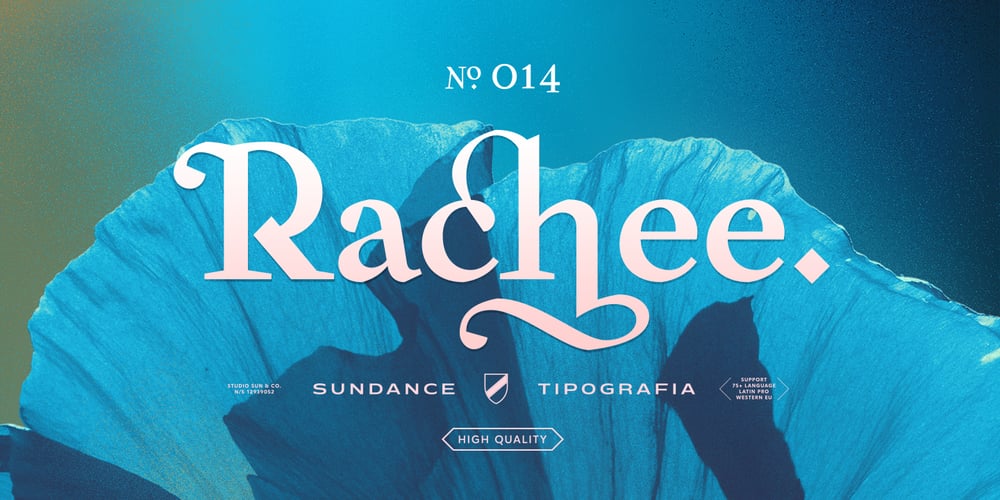
Rachee Font Family was designed by Cahya Sofyan and published by Studio Sun. Rachee contains 6 styles and family package options. Rachee Display is a modern serif typeface. Inspired by late Renaissance-era type and intended for display font, perfect for logotype, logogram, title, caption, and more. Rachee comes with 6 weights with some opentype features (Linnning figure, full ‘ff’ ligature, luballin avantgarde ligature, stylistic set, fraction, and more).